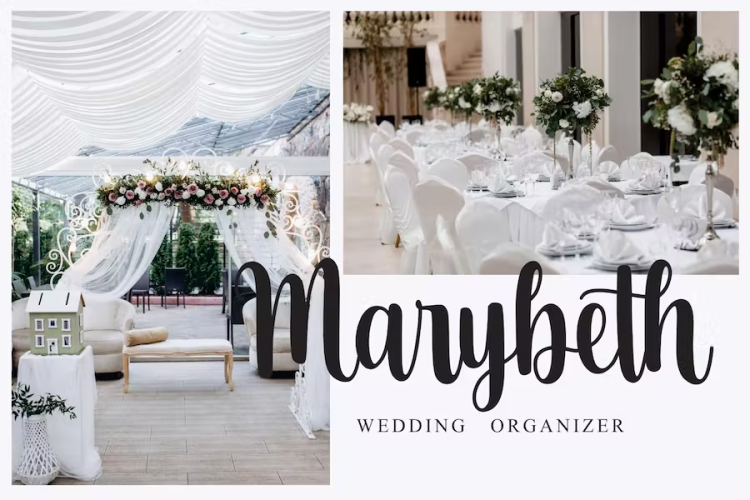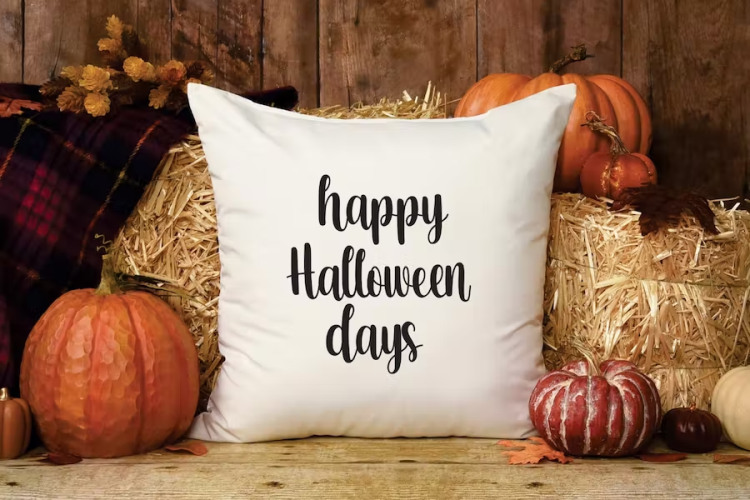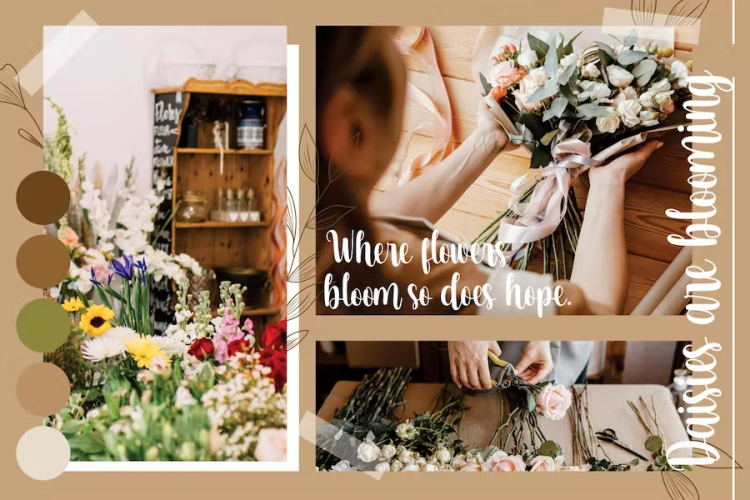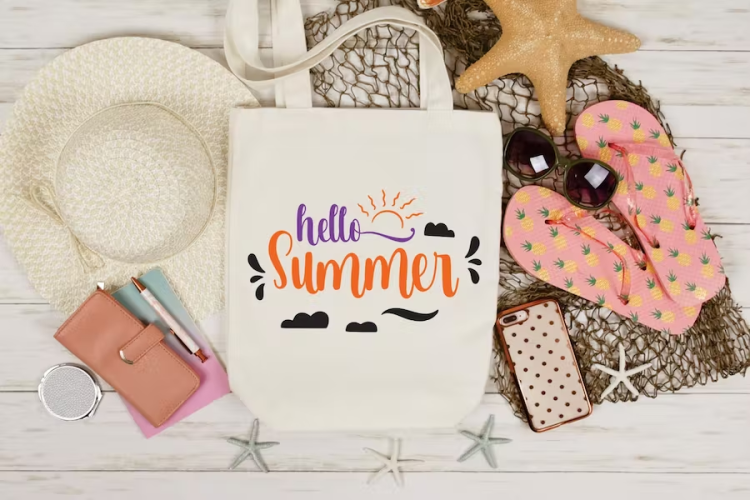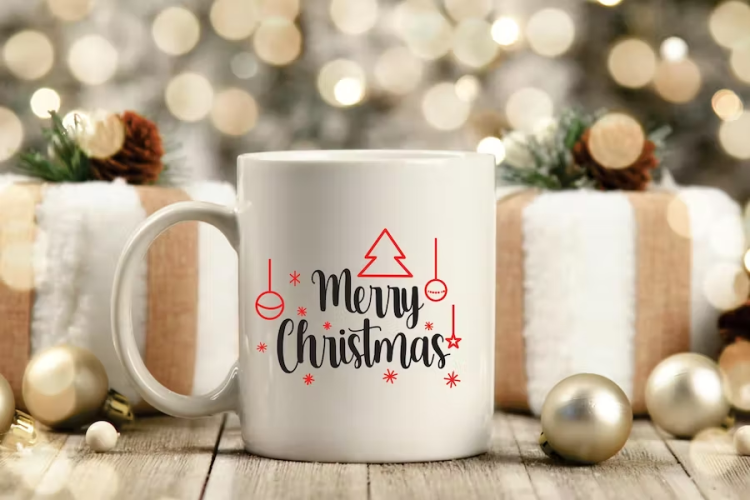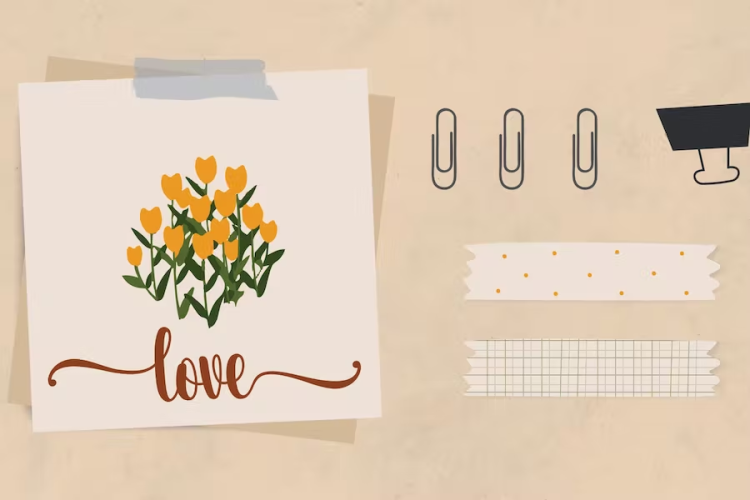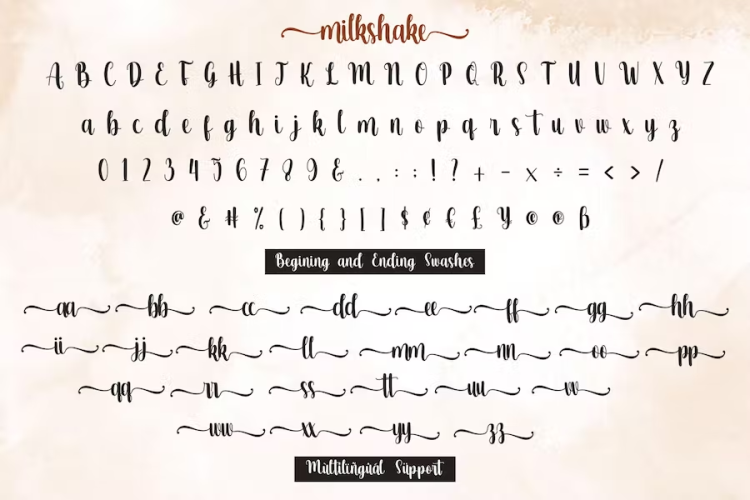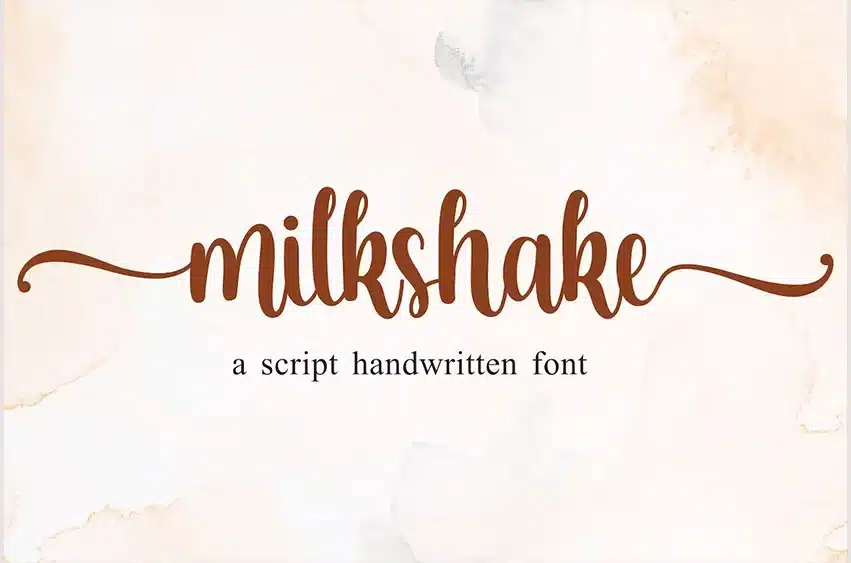
Milkshake Font
Milkshake Font is a script handwritten font. It is quirky and natural, hand-drawn. Together or apart, these fonts are ideal for adding a chic and cheery touch to your crafts.
This font is perfect for Cricut projects, procreate designs, crafting, branding, decorating, farmhouse designs, shirts, SVG designs, branding, blogs, logos, invitations, and more! Also, with their help, you can create a logo or beautiful frame for your home.
Or use it for your business, book covers, stationery, marketing, magazines, and more. Fall in love with its incredibly versatile style and create spectacular designs! Use this font for any crafting project that requires a personalized look!
Milkshake Font is a Script And Handwritten font that brings a professional and versatile look to your projects. Milkshake Font is a script handwritten font.